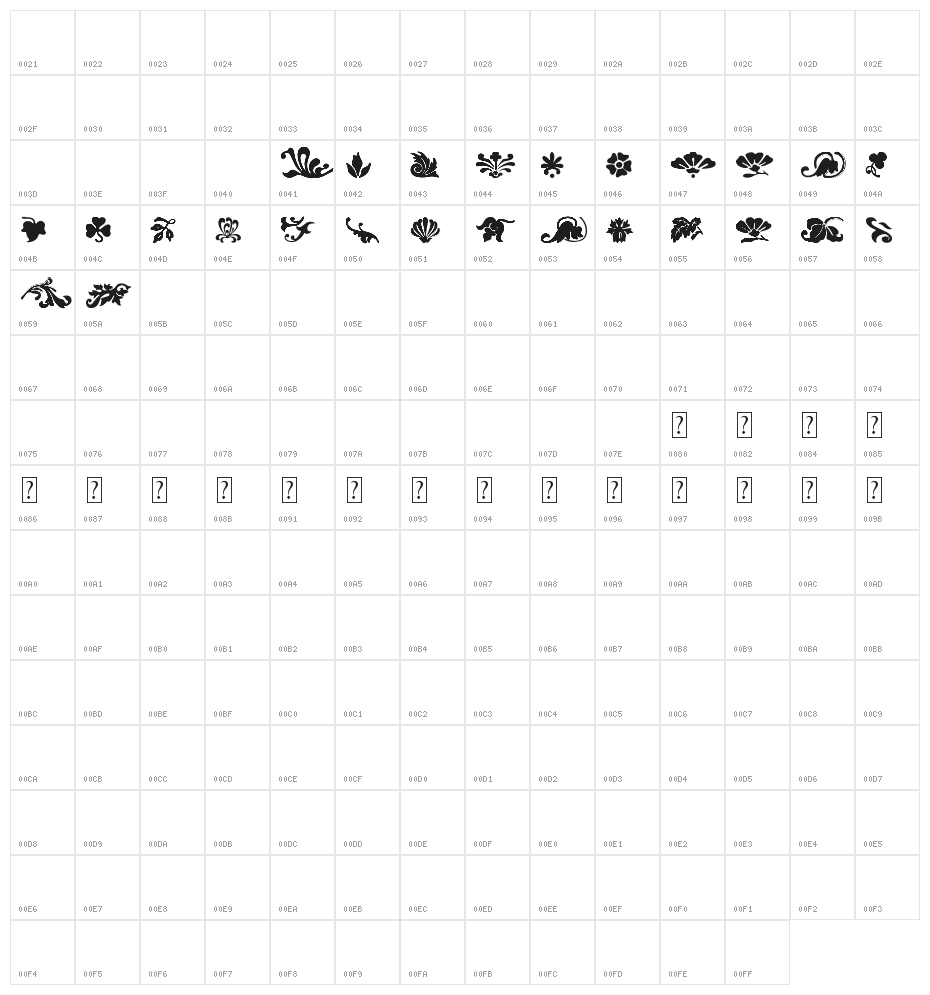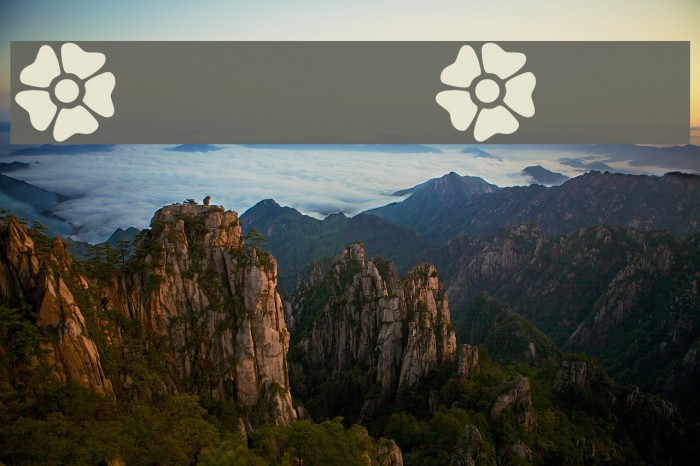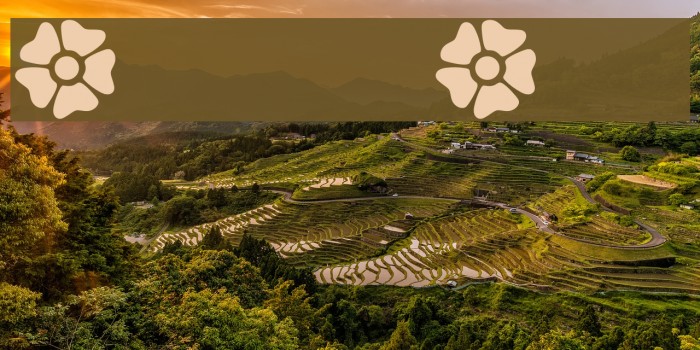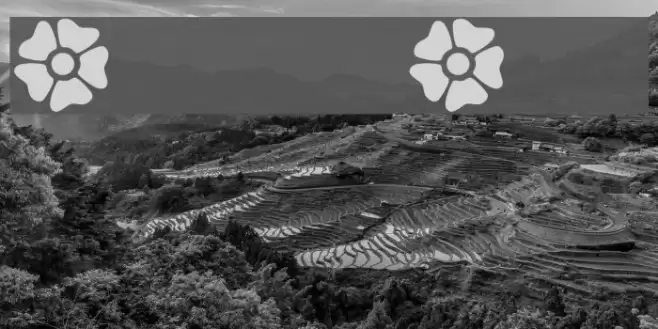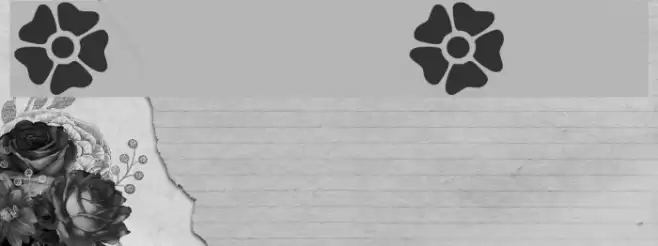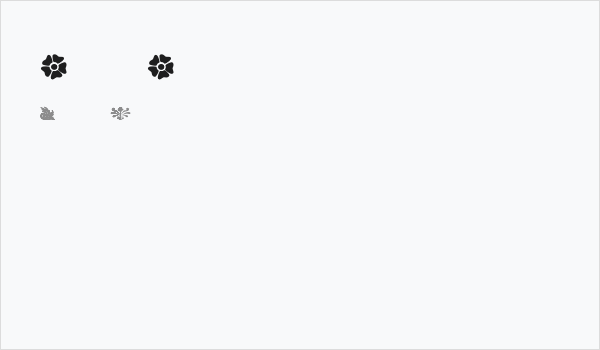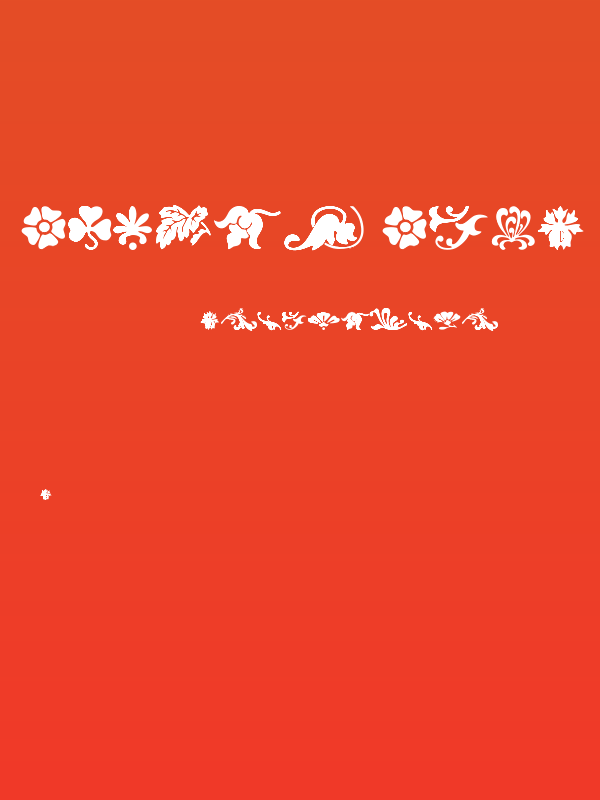
Fleurs Font Description
This font is a decorative collection of floral and ornamental designs, showcasing a variety of intricate patterns and motifs. Each character is a unique floral element, ranging from simple petals to elaborate flourishes. The designs are bold and striking, making them ideal for decorative purposes. The font does not contain traditional alphanumeric characters but instead focuses on artistic embellishments that can be used to enhance visual projects. The overall style is elegant and artistic, suitable for adding a touch of nature-inspired beauty to any design.
| Use Case | Logos, Decorative elements |
| Proposed Projects | Ideal for wedding invitations, greeting cards, decorative borders, and artistic projects requiring a floral theme. |